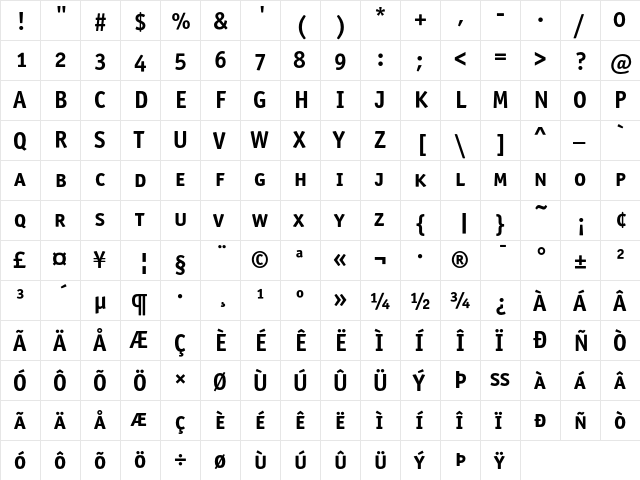
OfficinaSansITC Bold SC
Design Context for OfficinaSansITC Typeface
OfficinaSansITC is a composed and adaptable typeface that performs quietly and consistently across a wide range of design contexts. The heavy weight commands attention and anchors typographic hierarchies.